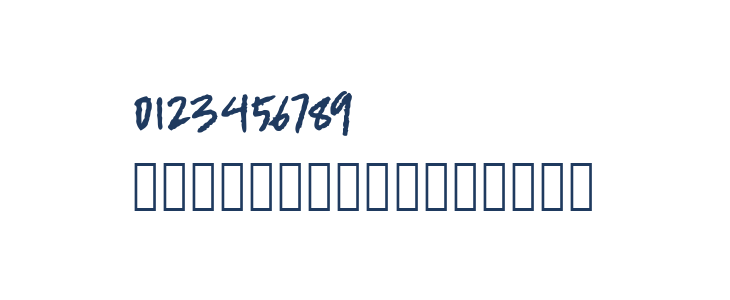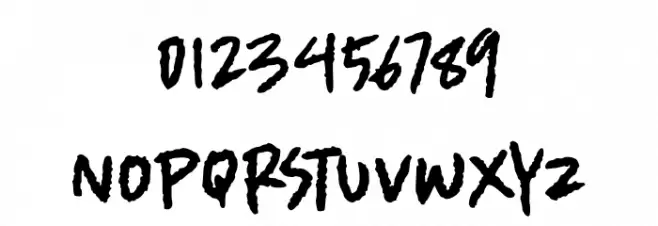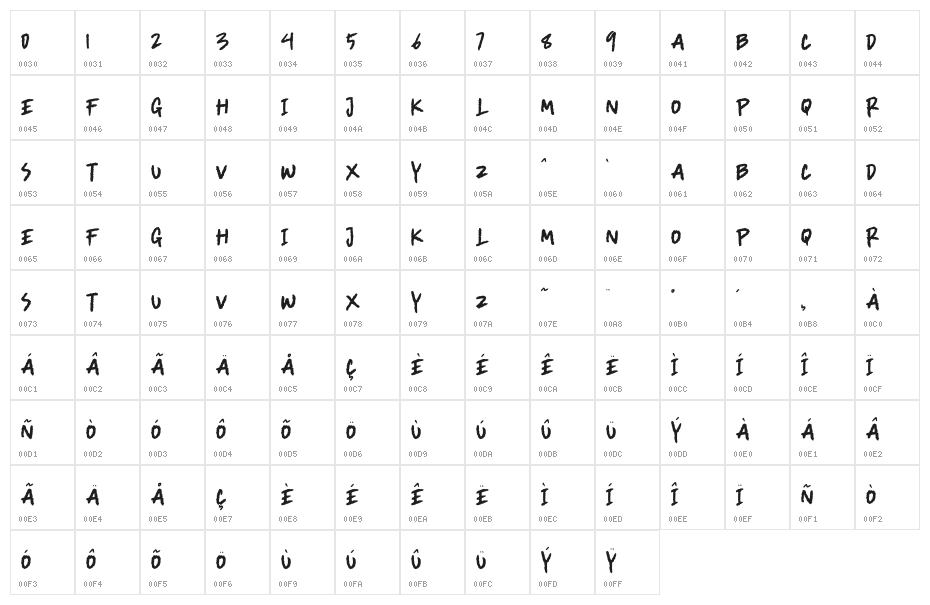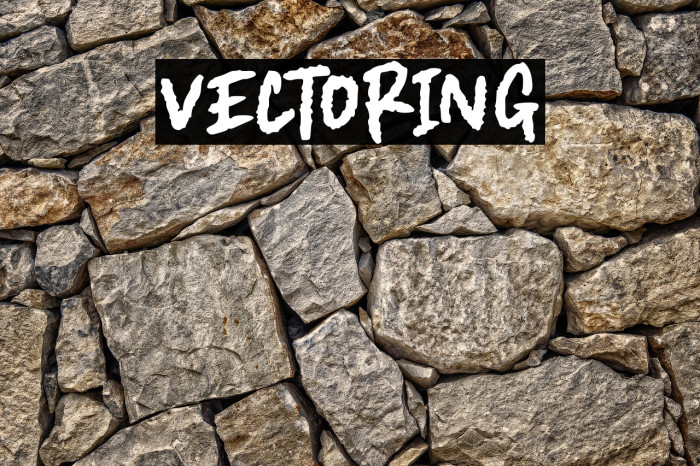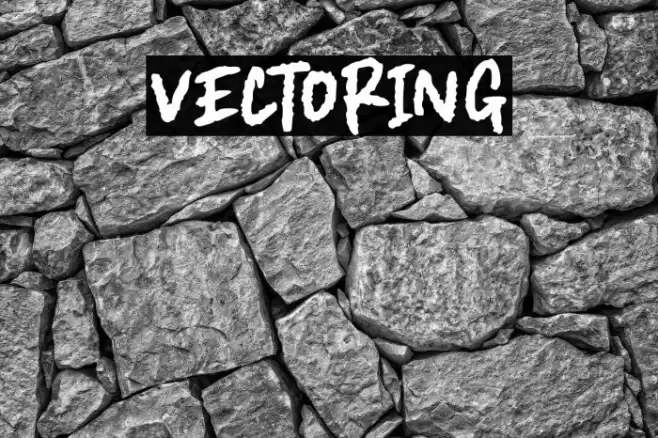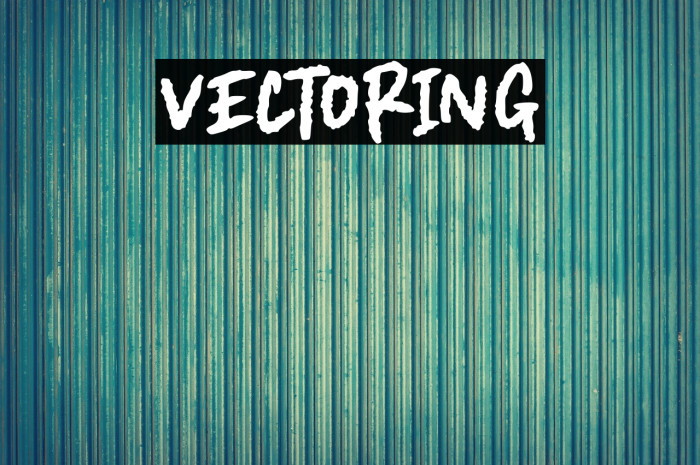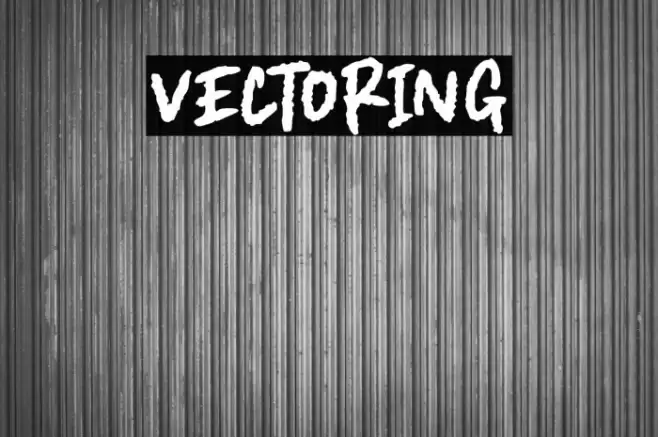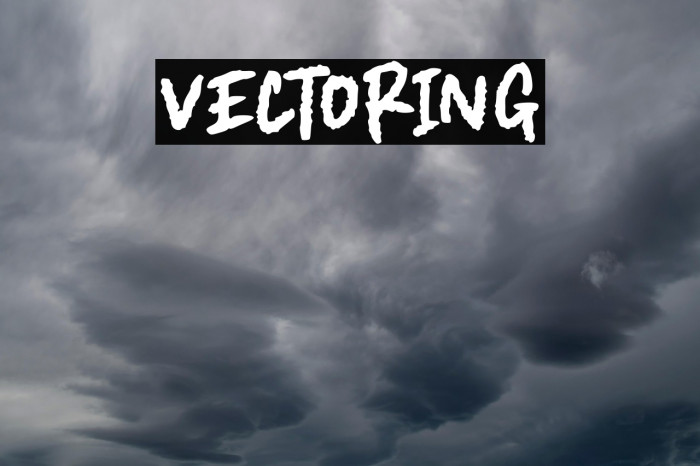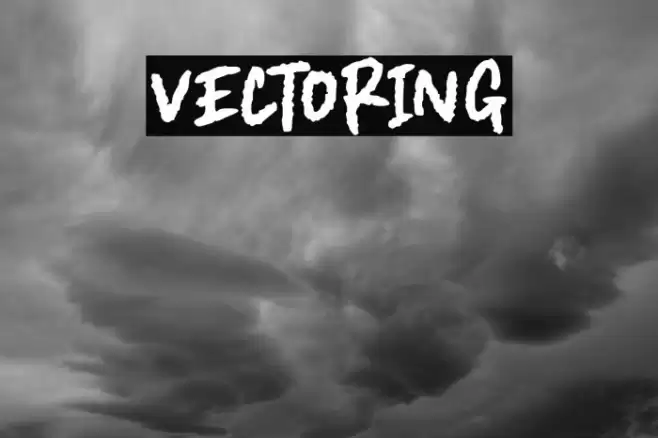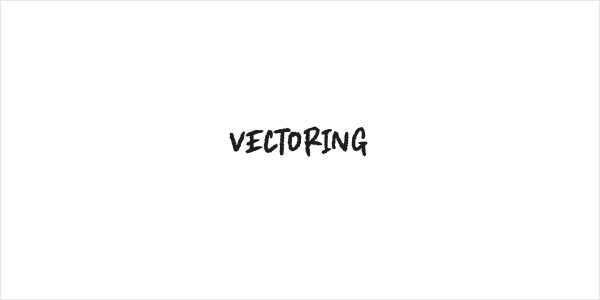
VECTORING Font
VECTORING Description
This font features a bold, energetic style with a hand-drawn appearance. The characters are slightly irregular, giving it a dynamic and expressive feel. The strokes are thick and textured, resembling brush strokes, which adds a sense of movement and vitality. The uppercase letters are prominent and assertive, while the numbers maintain the same boldness and style. This font is ideal for projects that require a strong, impactful visual presence, such as posters, headlines, or branding materials. Its unique style makes it stand out, capturing attention with its artistic flair.
| Proposed Projects | Ideal for posters, headlines, branding, and any project needing a strong visual impact. |